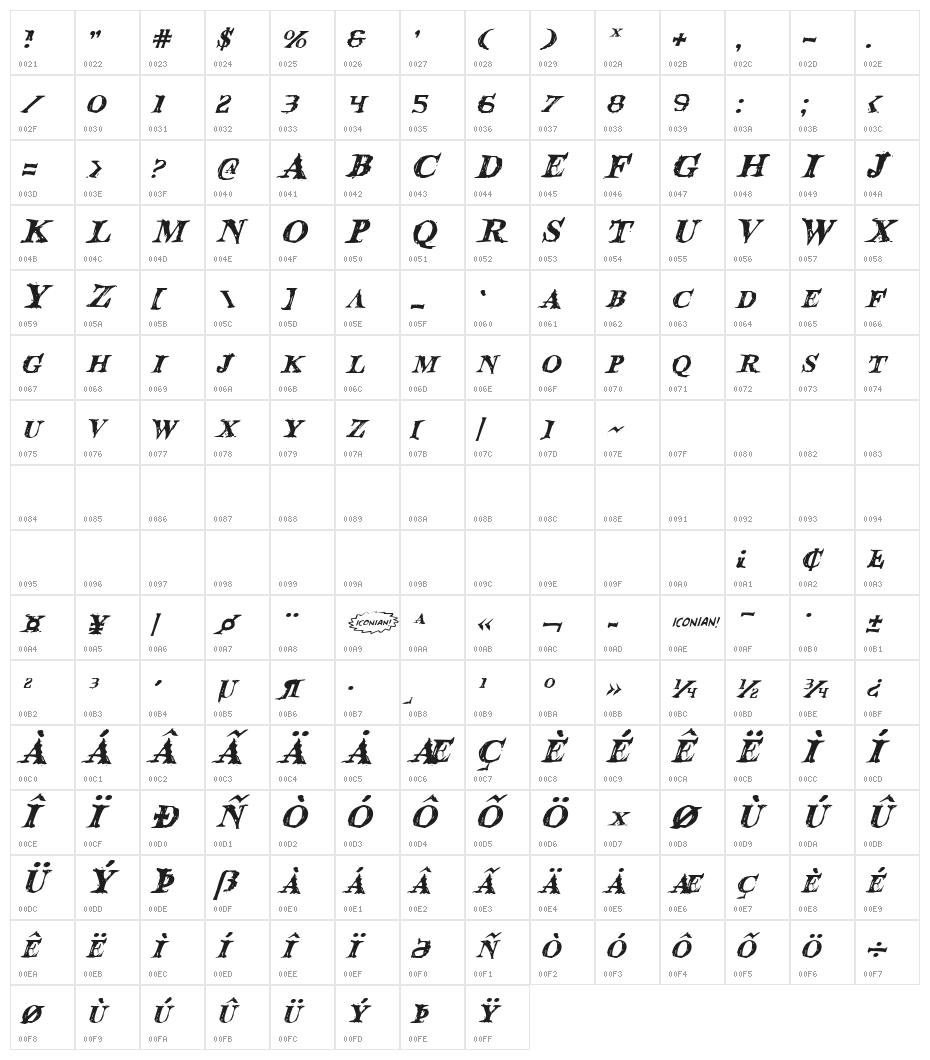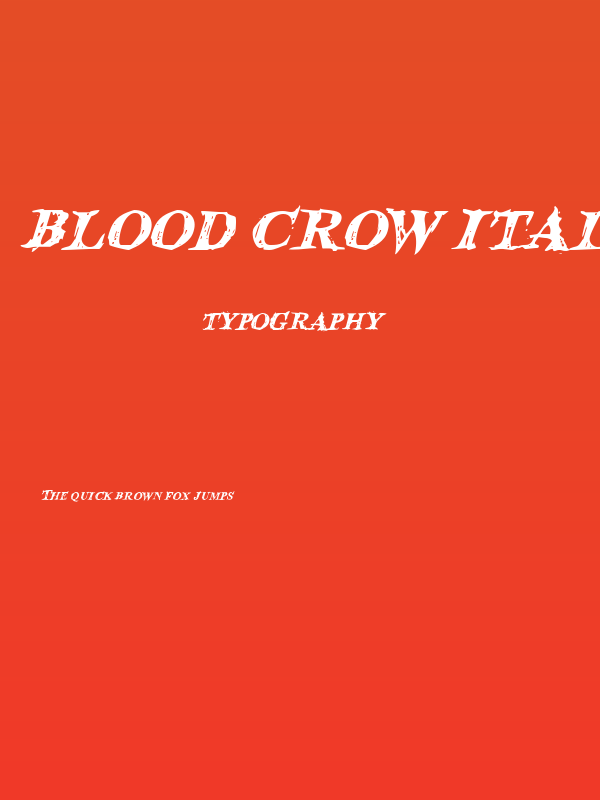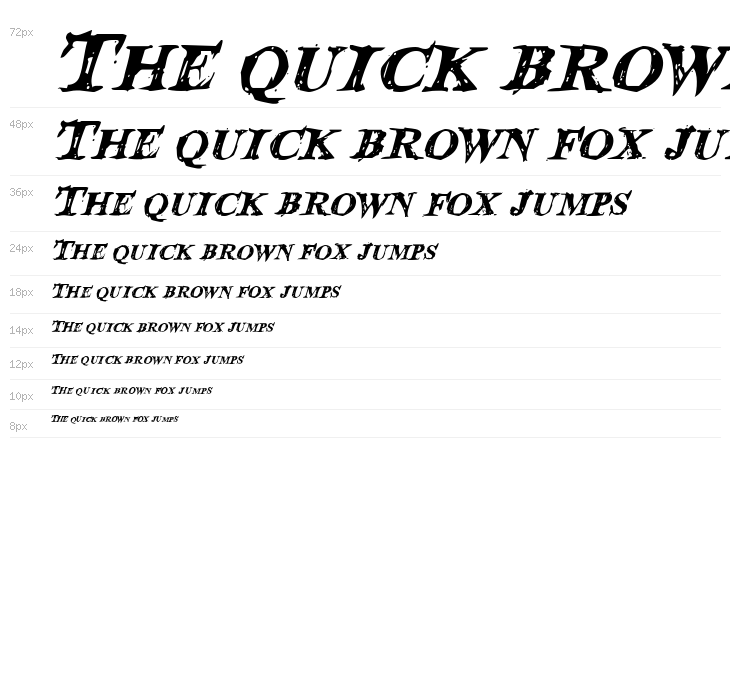
Blood Crow Italic Font
Blood Crow Italic Description
This font features a bold and dramatic style with a distressed, grunge-like appearance. The characters are italicized, giving them a dynamic and edgy look. Each letter is uniquely textured, resembling splatters or scratches, which adds to its rugged and raw aesthetic. The uppercase and lowercase letters maintain a consistent style, with sharp edges and varying stroke thicknesses that contribute to its high contrast. The numbers and special characters follow the same design principles, ensuring uniformity across the font. This font is ideal for projects that require a bold statement or a rebellious, unconventional vibe.
| Proposed Projects | Album covers, horror movie posters, edgy branding, streetwear designs. |